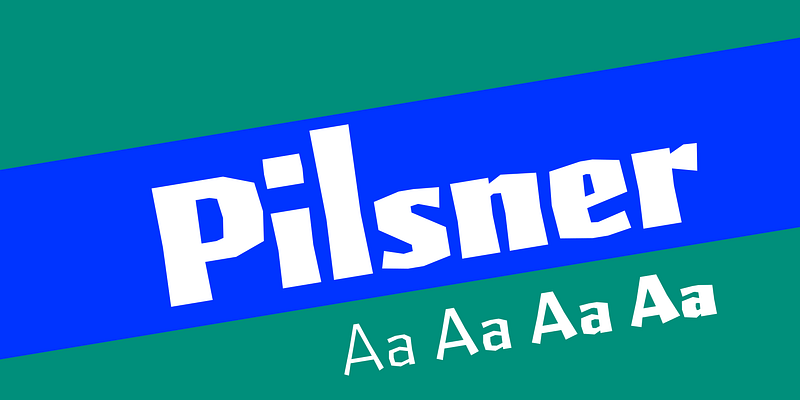
Sitting in a Paris cafe with a bottle of beer, Tobias Frere-Jones gave his attention to the label. It was set in a roman design wearing blackletter-like clothes, probably to suggest an origin in Alsace or points to the East. Unable to forget the design, with its blocky, straight line emphasis, Tobias designed Pilsner, an exercise in straight lines in an angle-centered scheme. Pilsner offers a truly adventurous typographic texture.